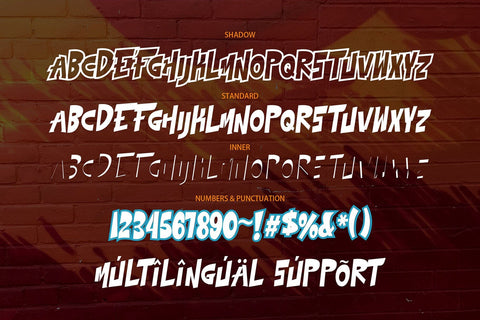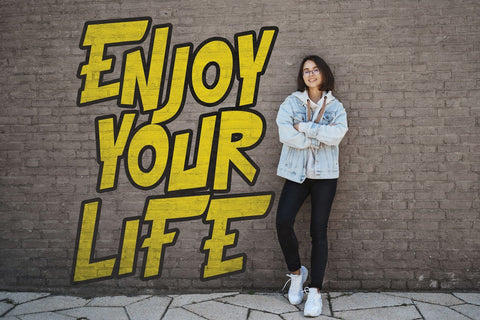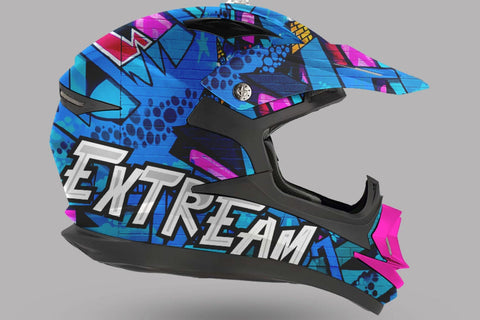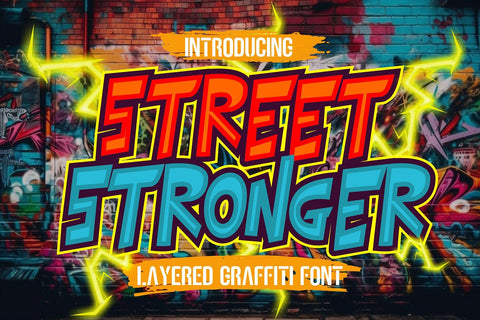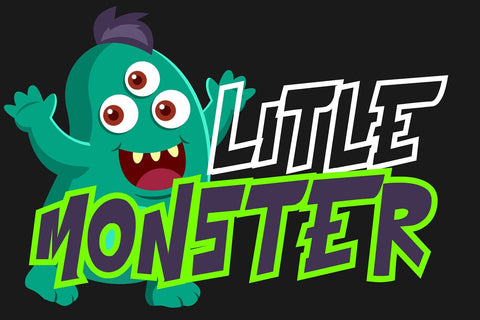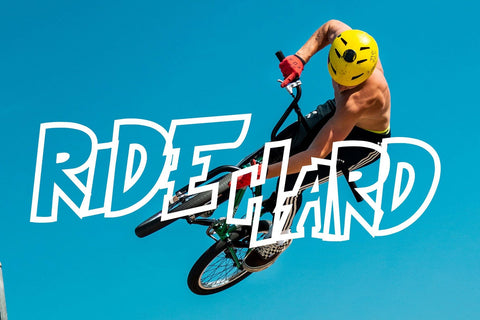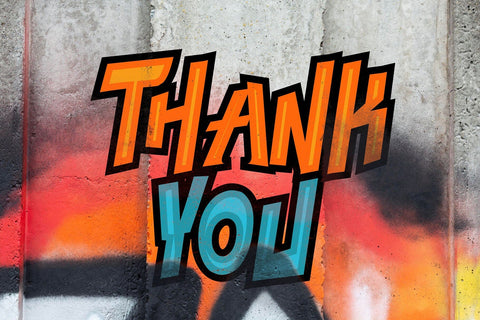
Street Stronger - Layered Graffiti font
"Street Stronger" is a graffiti font with three layers that can be used to create a three-dimensional (3D) effect on your text. By using these three layers in your design, you can add depth and dimension to your typography. Fonts with these layers are often used in street art, posters, or other designs that aim to create a prominent 3D effect.
- Graffiti Characters looks